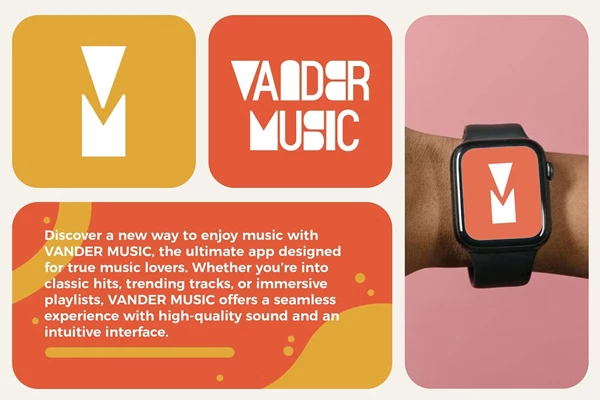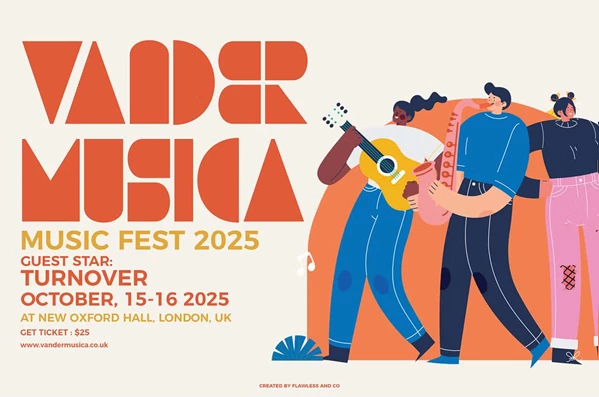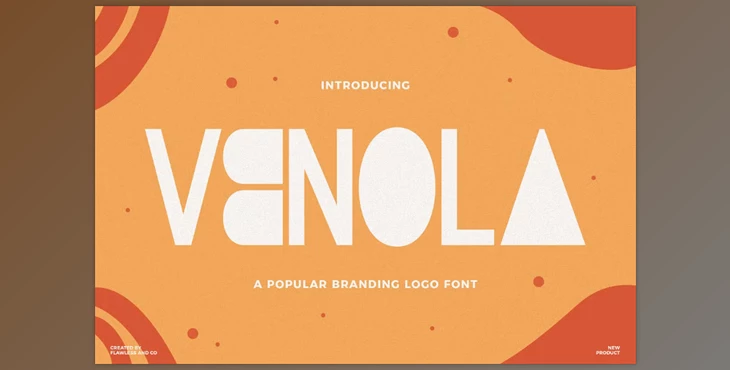
Venola - Branding Logo Font:
Venola is a new sophisticated font tailored for branding and logo creation that effortlessly combines modern elegance with simplistic beauty. From refined proportions to sophisticated curves, Venola was designed to yield high-end logos, brand identities, product packaging, and even editorial designs. Its effortless sleek character renders it ideal for more modern companies that need a distinctive, professional, and visually appealing brand identity. Venola provides brands with clarity, sophistication, and impactful visuals—regardless if the customer envisions a striking logo, modern website, or premium packaging.
- All-caps letters with a stylish and clean form.
- Inclusive of numbers and punctuation to meet the ever-growing design needs.
- Empowers aid with multilingual capabilities to address worldwide clients.
- Improvement of logos, branding, packaging, websites, and practically every design.
- Dramatic enhancement of identity with professionalism and a unique voice.
Who Should Use Venola?
Creatives, entrepreneurs, and even designers seeking conveyance of modern sophistication to their brands are all targeted by Venola. It caters especially, but not exclusively, to logo designers, beauty and fashion brands, design studios, boutique businesses, and companies with premium product packaging. Ideal for stylized brand storytelling, this font elevates visuals, and helps presence strategically, building a strong, stylish, and timeless brand.
The Ultimate Font For Designers?
Venola is more than a font; it is an asset for brand and logo designers. Its elegant curves and minimal structure allow for the effortless construction of brand marks. Ranging from venola logotypes, business packaging, and sleek modern business identities, venola yields certainty and refinement characteristic of all sophisticated designs.
Why Choose Venola?
It is known that a brand is incomplete without a typeface. With venola, the brand can communicate clearly, confidently, and in a coherent timeless style.Venola is characterized by its modern simplicity laced with elaborate details, making it the perfect candidate for the premium approachable logos. The clean lines and versatile letterforms guarantee branding across digital, print and packaging drives consistency, impact, and memorability in every application.